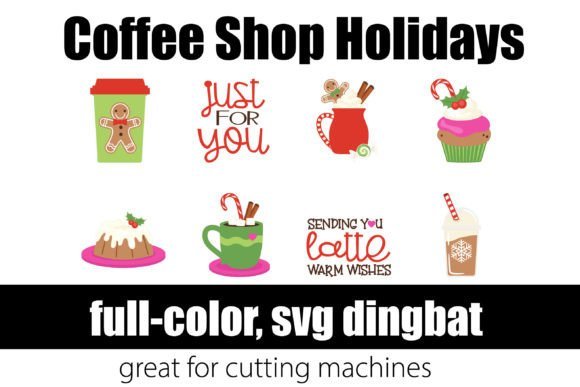
The Perfect Cup of Creativity: Introducing Coffee Shop Holidays Font
It’s the most wonderful time of the year, and for designers, that means a chance to get creative with holiday-themed projects. You’re sipping on hot cocoa, surrounded by twinkling lights, and suddenly, an idea strikes – a festive card for a loved one, a custom vinyl decal for your friends’ gifts, or a set of adorable treats for your social media followers. This is where the magic happens, and the perfect font can make all the difference.
Enter Coffee Shop Holidays Font, a whimsical dingbat font featuring Christmas-themed coffee and treats. With its OpenType full-color (SVG) capabilities, this font is a game-changer for designers looking to add a pop of color and personality to their projects. Whether you’re working with Adobe products, Silhouette Studio, or other compatible software, this font is sure to bring a smile to your face and make your designs shine.
Coffee Shop Holidays Font Key Features
- Font Family: A unique blend of modern and traditional typography elements, perfect for holiday-themed designs.
- Unique Characteristics: Includes festive icons and ornaments, as well as a set of holiday-themed ligatures and swashes, to add a touch of personality to your designs.
Coffee Shop Holidays Font Review
First impressions are everything, and the Coffee Shop Holidays Font certainly delivers. I love how the font has a festive and playful vibe to it ✨. It’s perfect for designs related to holidays, parties, or any occasion that calls for a cheerful atmosphere. The font’s rounded edges and friendly feel make it easy to read, even in larger font sizes.
The font also comes with a range of glyphs and characters, including international characters, which is great for designers who need to cater to a global audience ✨. The font’s versatility and range of uses make it a great addition to any designer’s toolkit.
Limits and Drawbacks
- ⚠️ Limited to a specific niche: While the font is perfect for holiday-themed designs, it may not be as versatile as other fonts for more general use.
- ⚠️ May not be suitable for formal designs: The font’s playful and festive vibe may not be suitable for more formal or professional designs.
- ⚠️ Limited to a single style: The font only comes in a single style, which may limit its use in more complex designs.
Overall, I think the Coffee Shop Holidays Font is a great addition to any designer’s toolkit, especially for holiday-themed designs. While it may have some limitations, its unique style and versatility make it a great choice for designers looking for a fun and festive font ✨.
Coffee Shop Holidays Font: A Practical Application Guide
- Tip: Use a bold font size and color to make the text stand out against the background.
- Use the Coffee Shop Holidays Font to create custom sticker designs, such as holiday-themed icons and phrases like “Holiday Cheer” or “Gift Ideas”.
Create a festive winter wonderland invitation using the Coffee Shop Holidays Font. This font is perfect for adding a touch of warmth and coziness to your design.